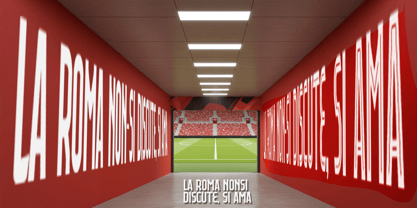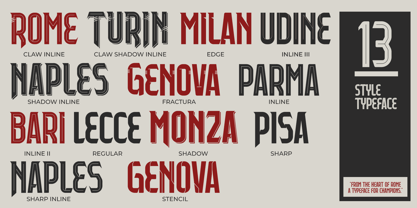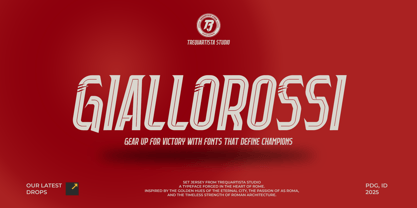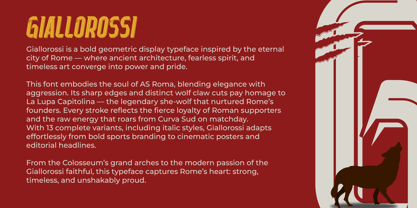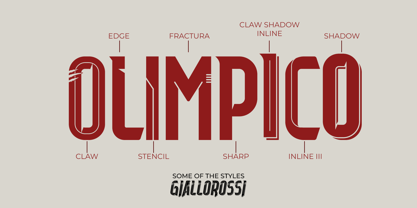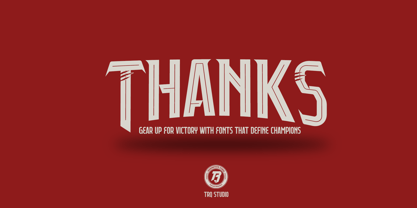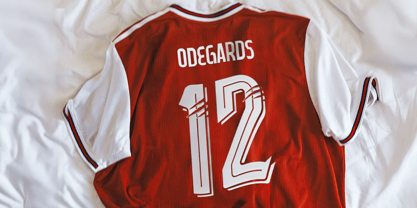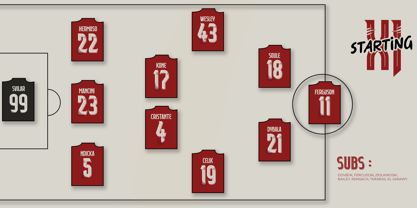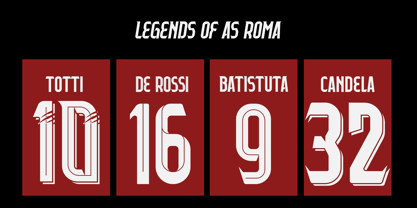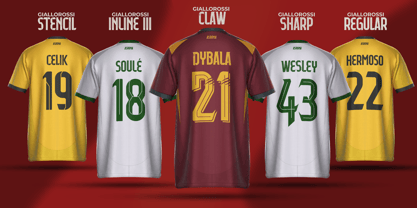
Giallorossi
by Trequartista Studio
The Giallorossi Font Family was designed by Muhammad Afif Ersya and published by Trequartista Studio. Giallorossi contains 4 styles and family package options. More about this family
Giallorossi is a bold geometric display typeface inspired by the eternal city of Rome — where ancient architecture, fearless spirit, and timeless art converge into power and pride. This font embodies the soul of AS Roma, blending elegance with aggression. Its sharp edges and distinct wolf claw cuts pay homage to La Lupa Capitolina — the legendary she-wolf that nurtured Rome’s founders. Every stroke reflects the fierce loyalty of Roman supporters and the raw energy that roars from Curva Sud on matchday. With 13 complete variants, including italic styles, Giallorossi adapts effortlessly from bold sports branding to cinematic posters and editorial headlines. From the Colosseum’s grand arches to the modern passion of the Giallorossi faithful, this typeface captures Rome’s heart: strong, timeless, and unshakably proud. Complete 15 Variants contact me